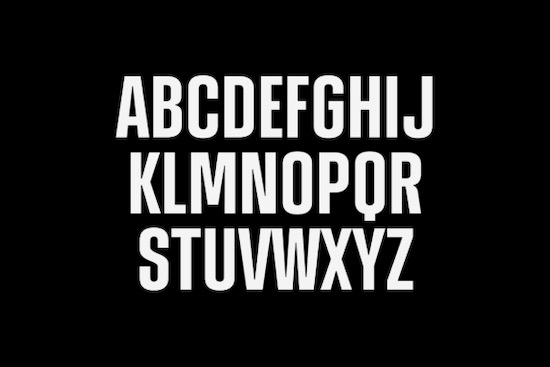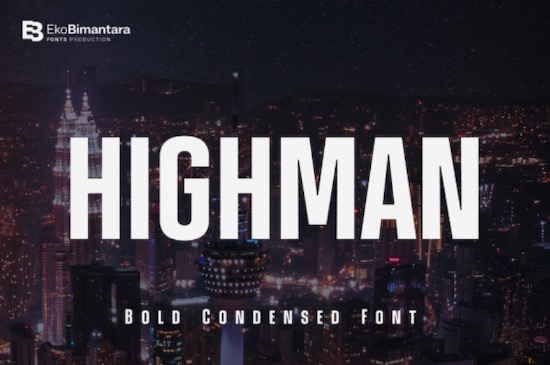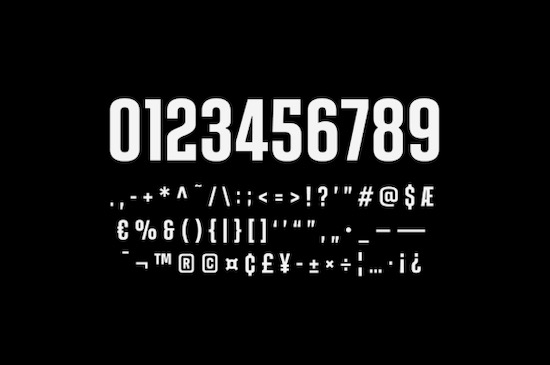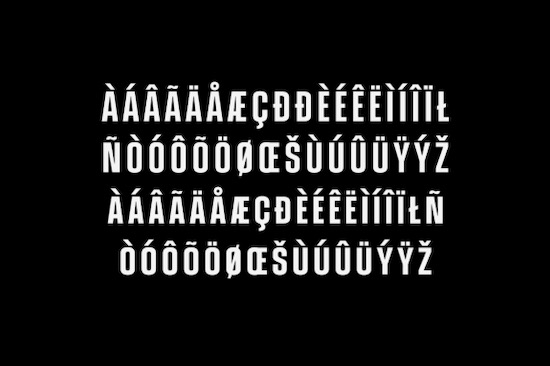
Highman is a modern strong condensed display font. It was designed and shared by Ekobi Mantara Studio, this elegant font includes all caps letters yet there’s a different height between the lowercase & uppercase.
Highman font has a classic and elegant style for stacking, headers, magazines, flower-shaped asterisk glyph, poster design, beauty branding, titling, grid layout, display purposes, and more.
Highman Display Font